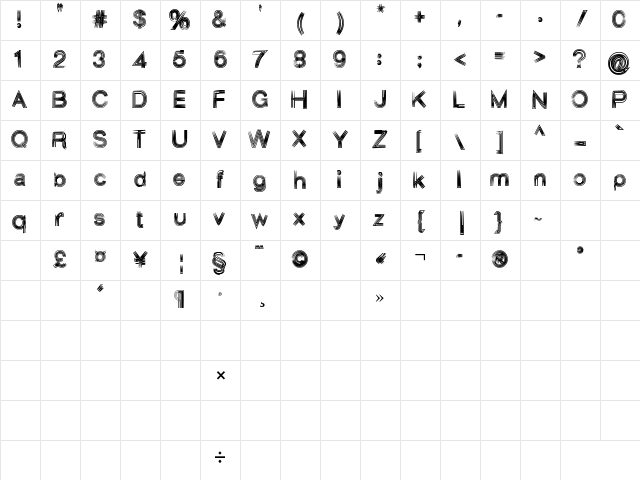
Aesthetica Regular
Design Context for Aesthetica
Aesthetica is a composed and adaptable typeface that performs quietly and consistently across a wide range of design contexts.